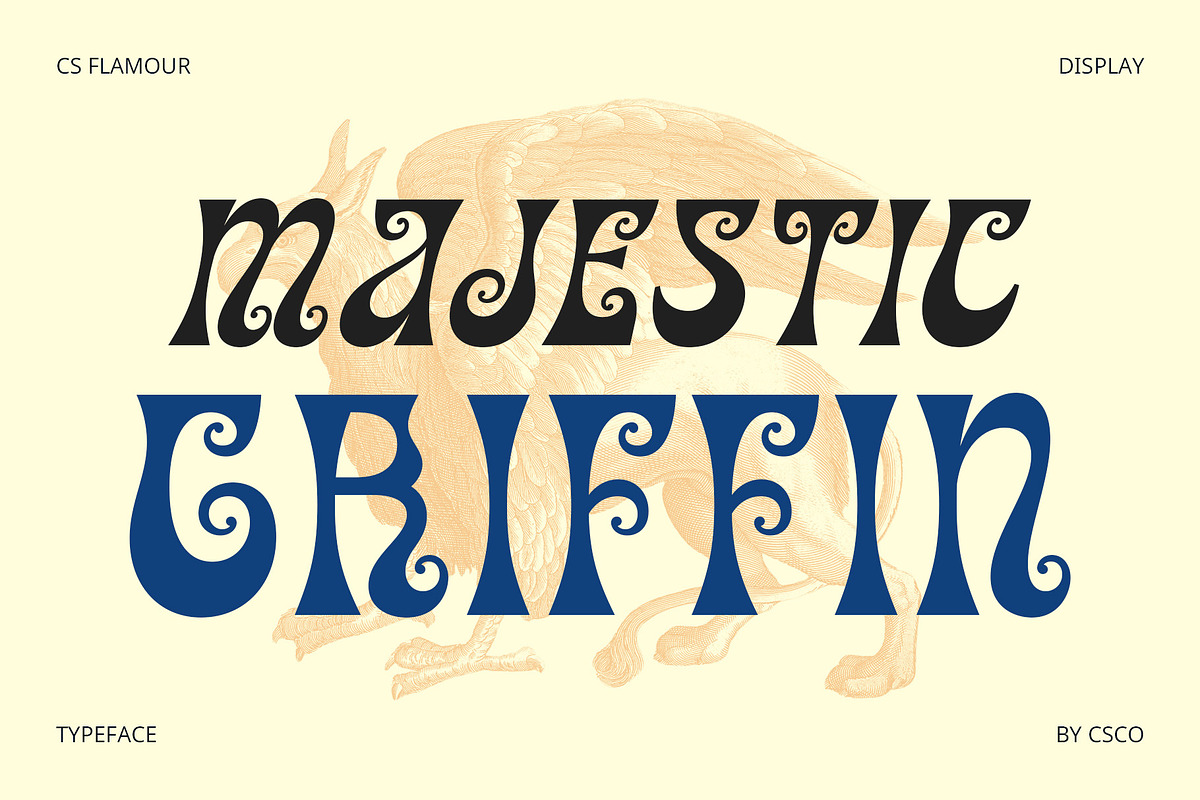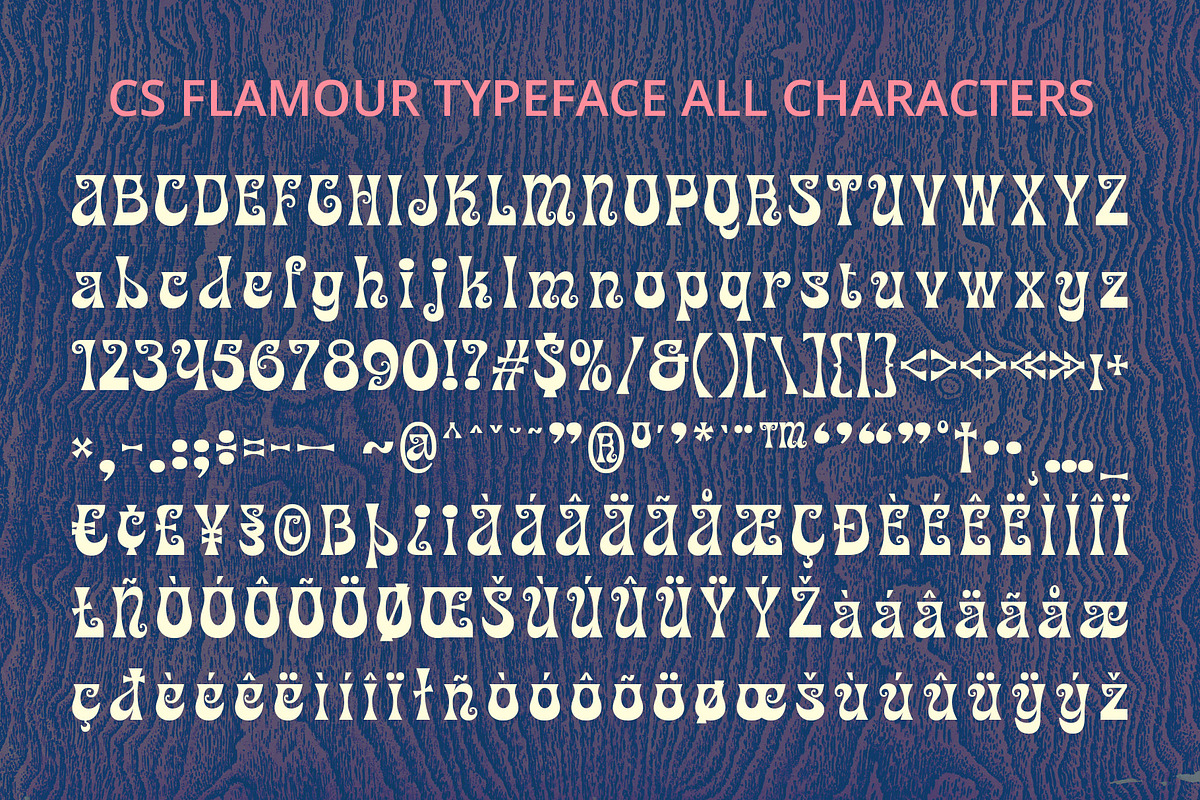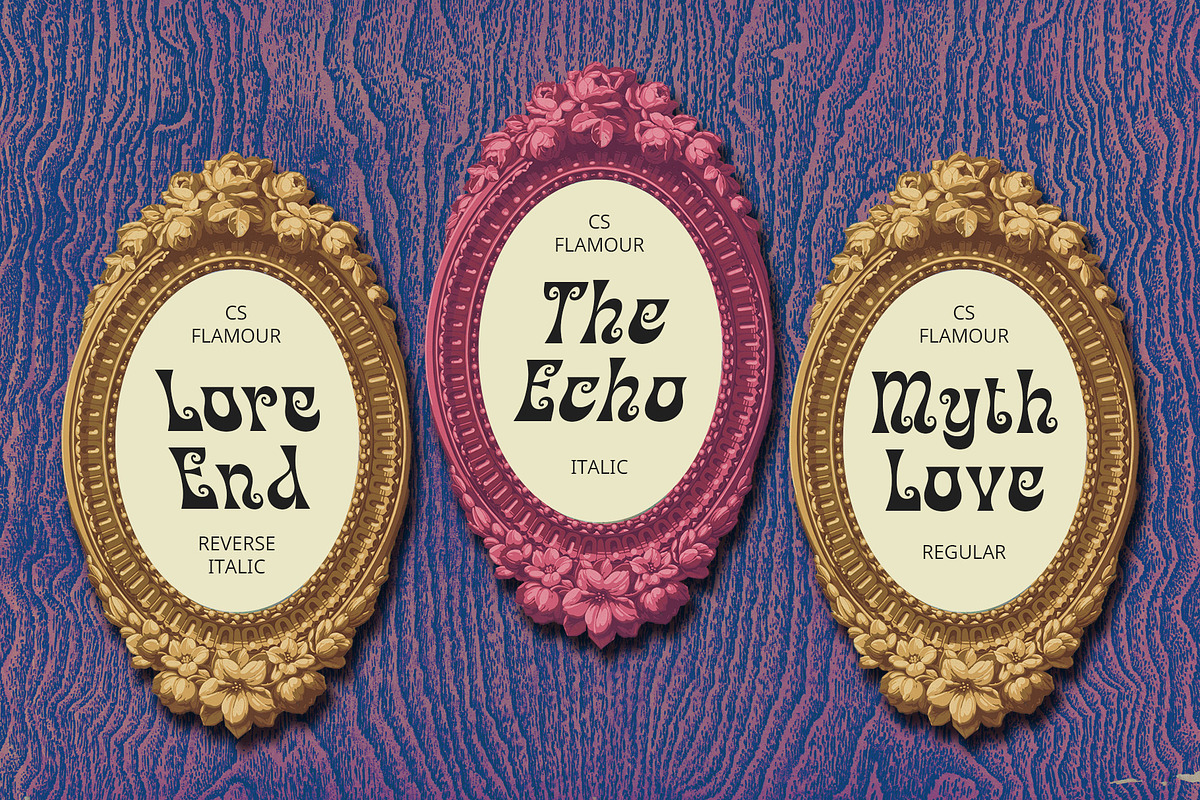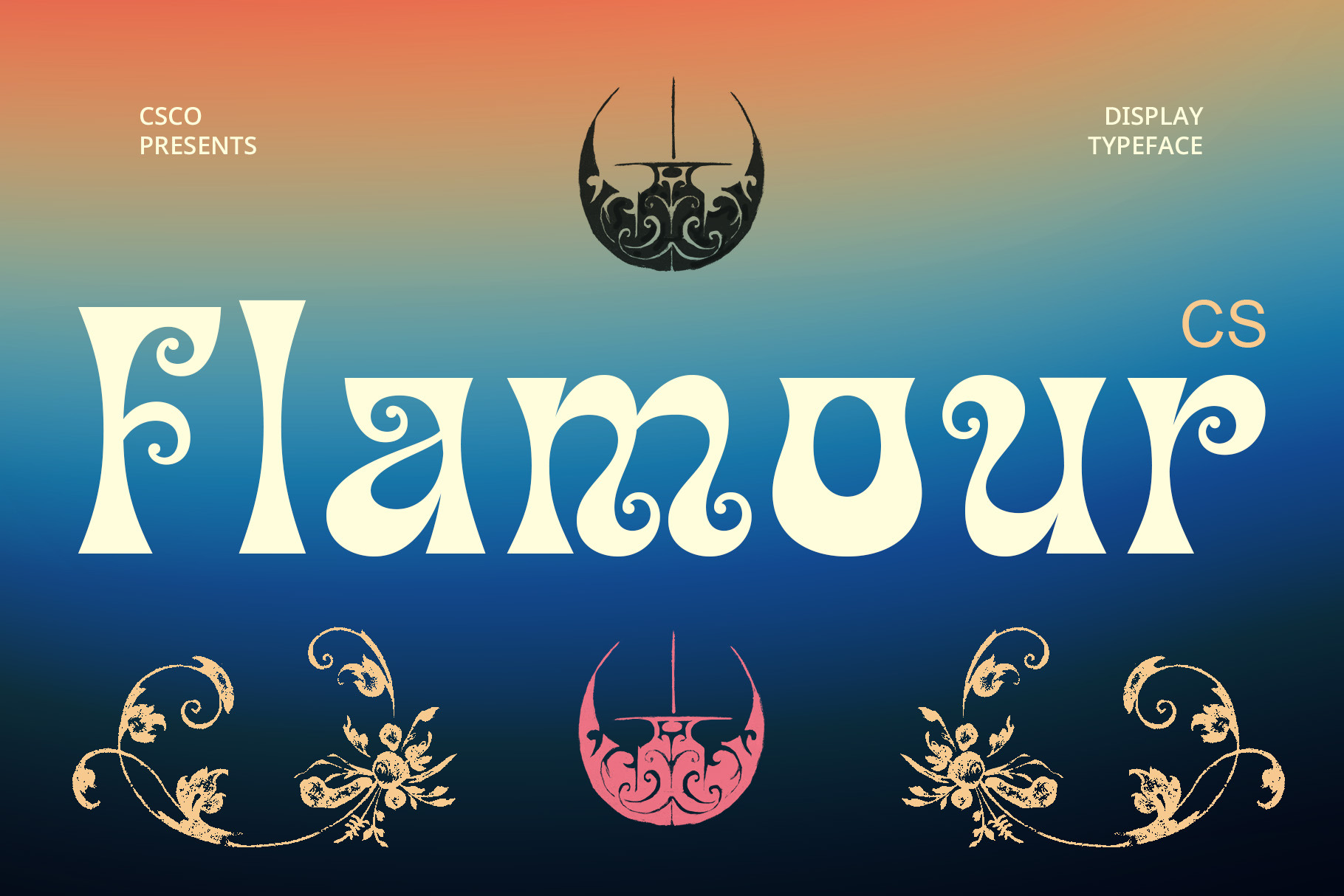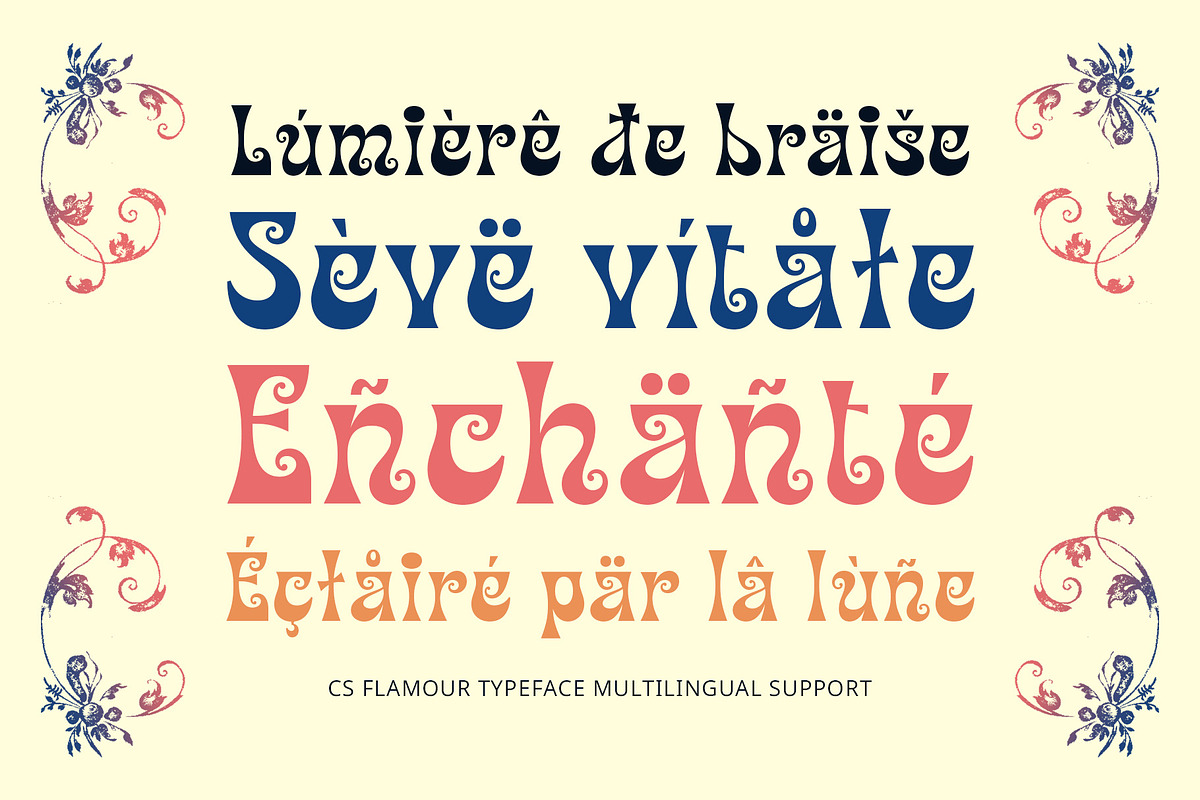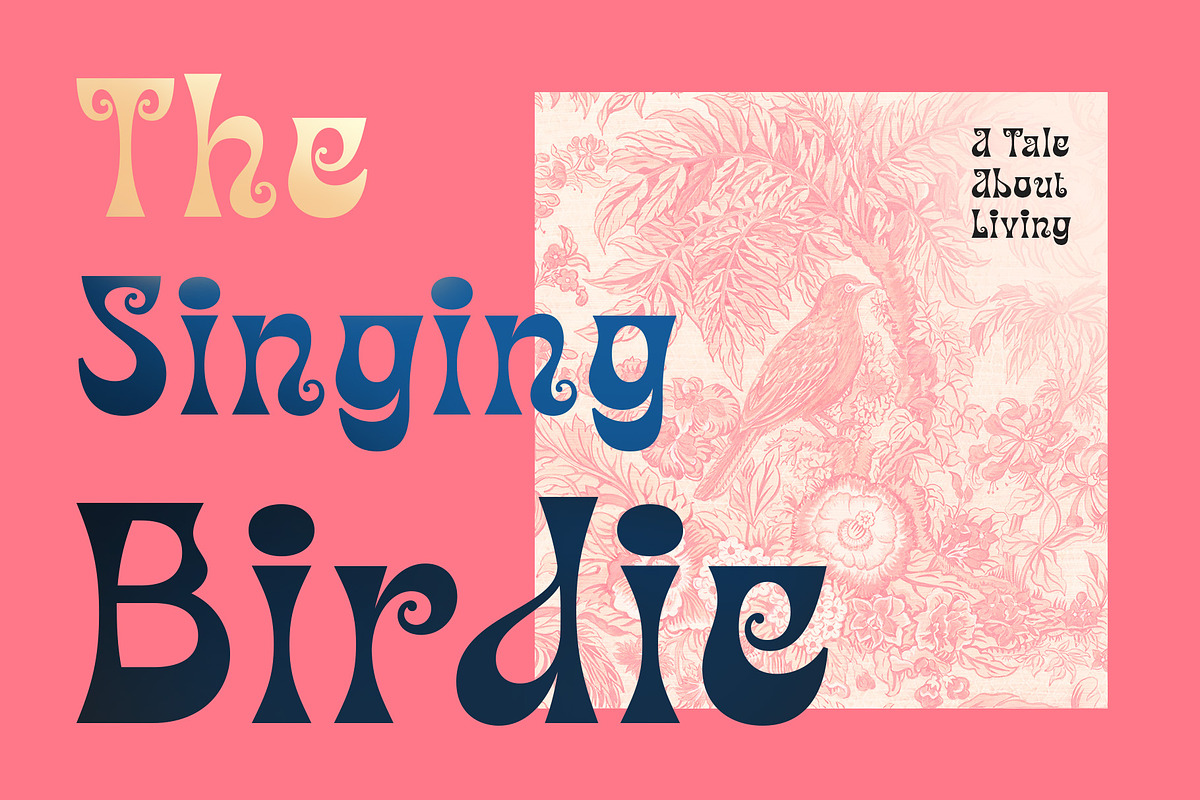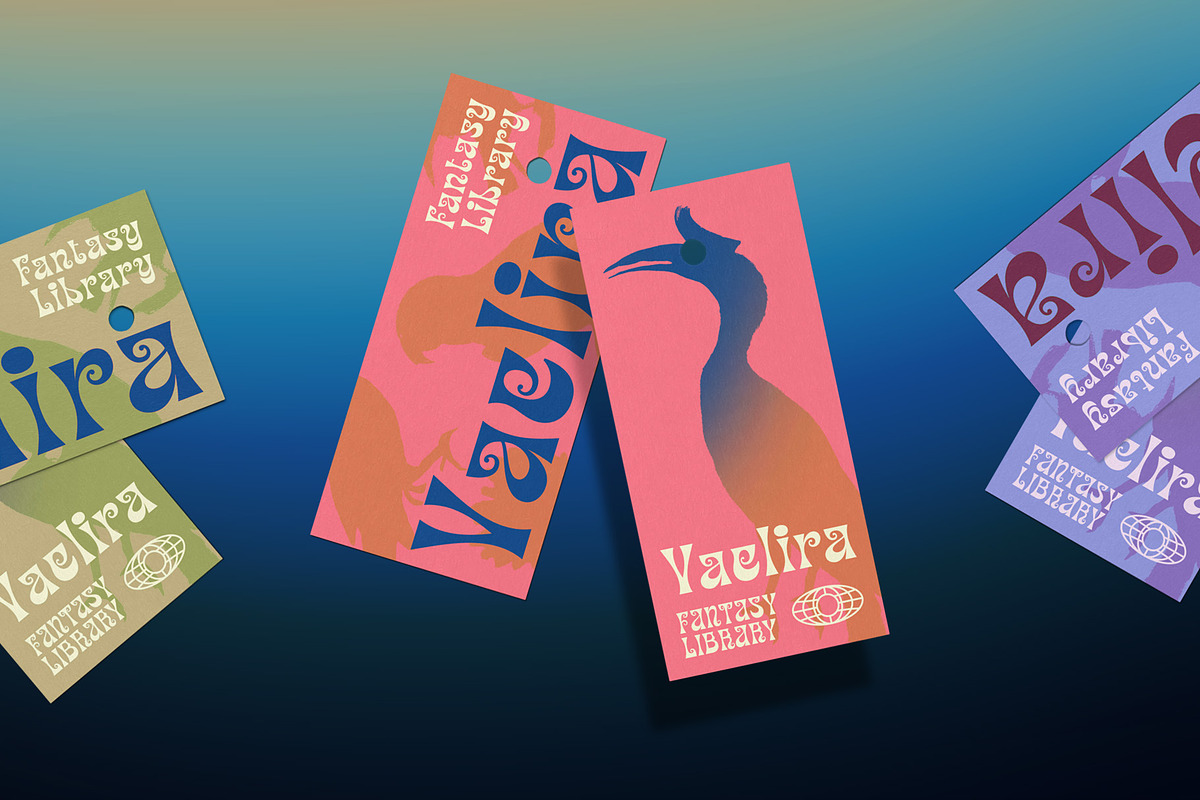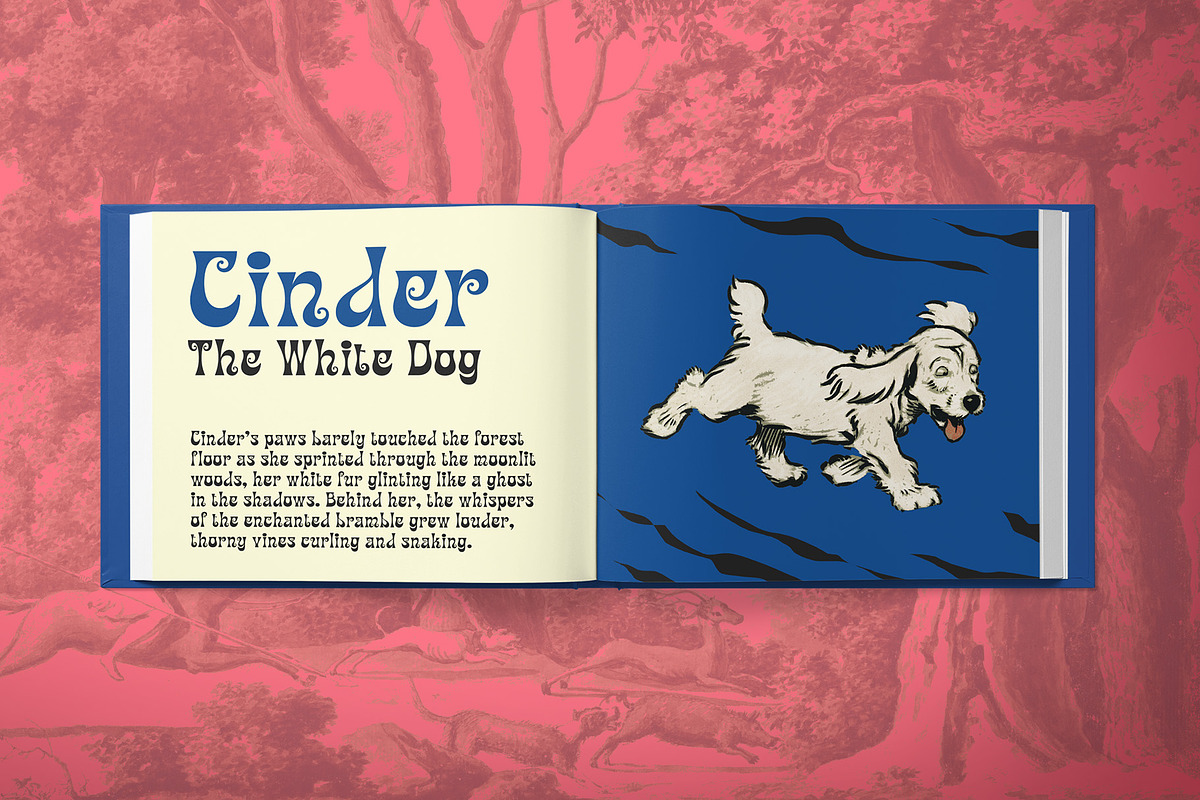
CS Flamour – Fantasy Font
CS Flamour – Fantasy Font: A Whimsical Display Font for Enchanted Designs
Intricate Letterforms with a Magical Touch CS Flamour is a fantasy display font designed to capture the essence of magic, mystery, and adventure. Its whimsical curves, decorative swirls, and unique embellishments bring a dreamlike quality to any design, making it perfect for projects that transport audiences to mythical realms and enchanted worlds.
Perfect for Fantasy-Themed Creations Inspired by legendary tales and mystical creatures, CS Flamour is ideal for book covers, game titles, movie posters, and any design that demands an otherworldly aesthetic. Whether evoking a lighthearted fairy-tale atmosphere or a darker, more mysterious tone, this font adapts effortlessly to various fantasy-inspired visuals.
A Font for Storytelling and Imagination Every letter in CS Flamour is crafted to enhance storytelling, making it a great choice for fantasy branding, magical event invitations, and themed merchandise. Its ornate yet readable design ensures both elegance and visual intrigue, drawing viewers into a world of creativity and wonder. If you’re looking for a font that sparks imagination and adventure, CS Flamour is the perfect choice for your next magical design.
- CS Flamour Regular
- CS Flamour Italic
- CS Flamour Reverse Italic